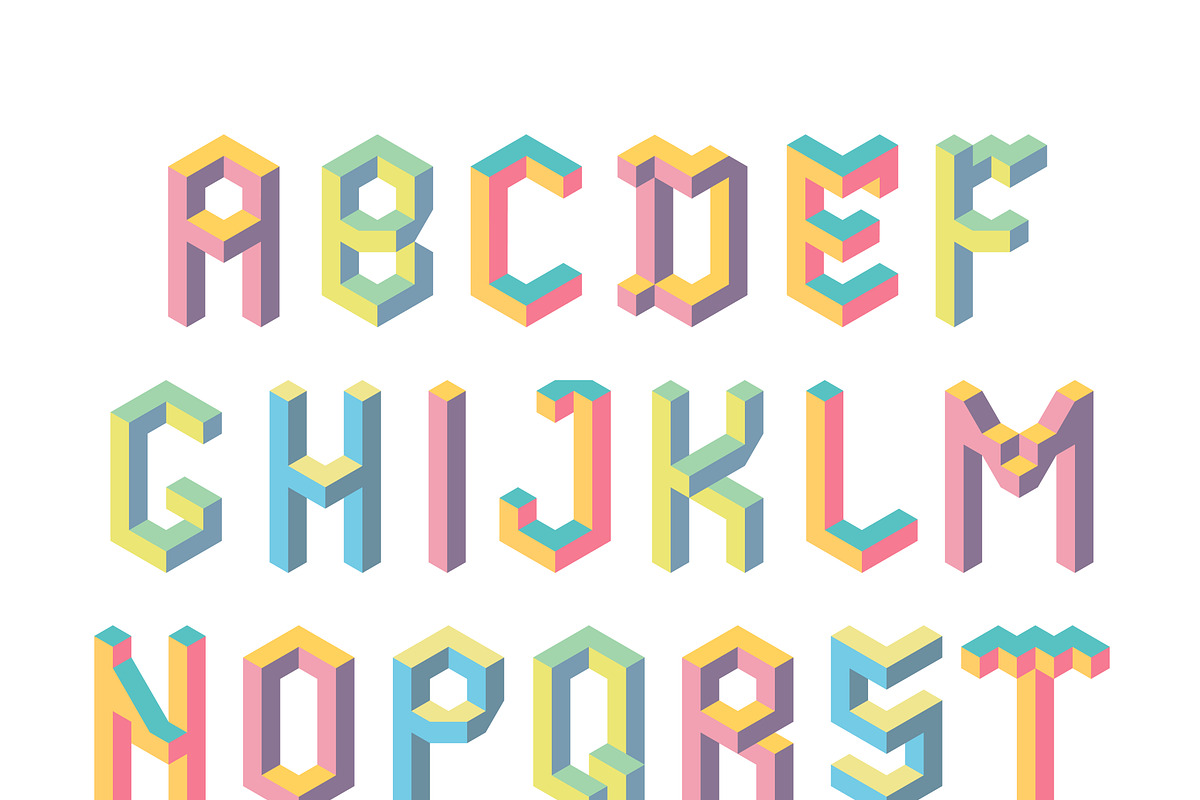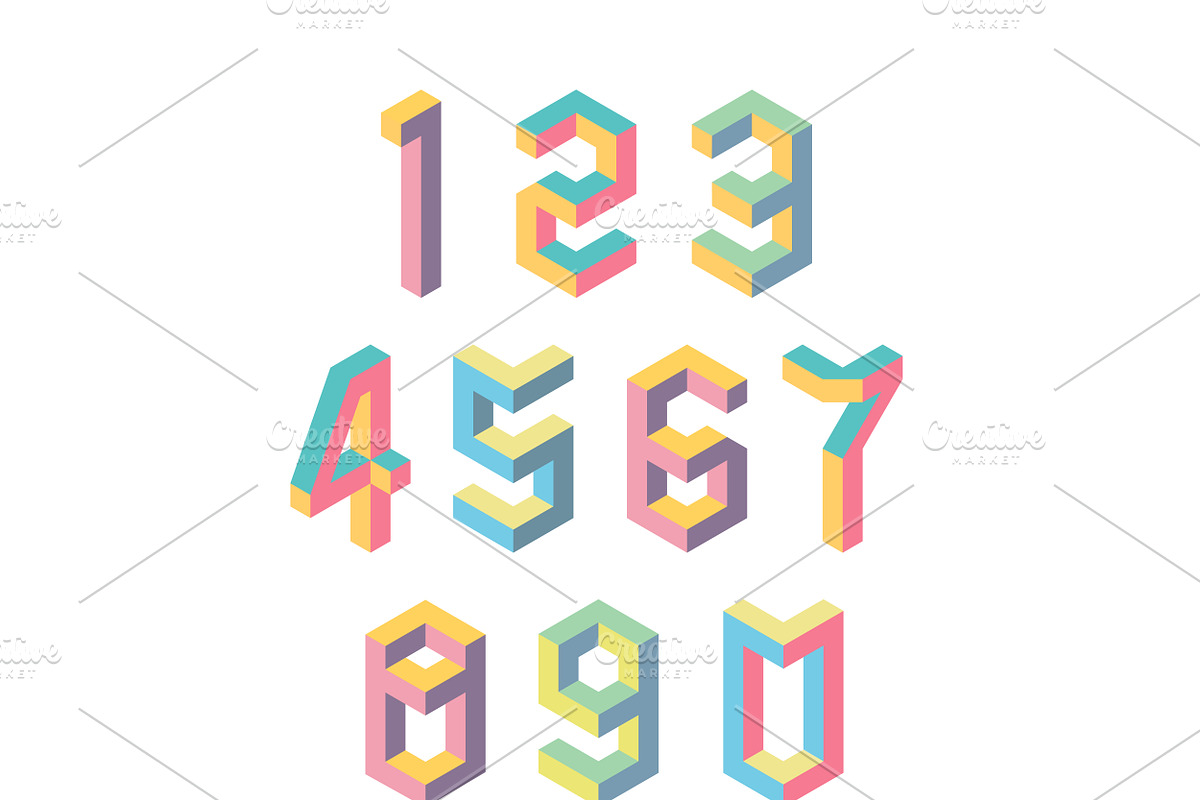
Isometric font. 3d geometry
Isometric font. 3d geometry by MalinaShop is a font selected for branding, posters, packaging, typography.
Why Isometric font. 3d geometry is worth a look
Isometric font. 3d geometry by MalinaShop fits naturally into Branding, posters, packaging, typography.